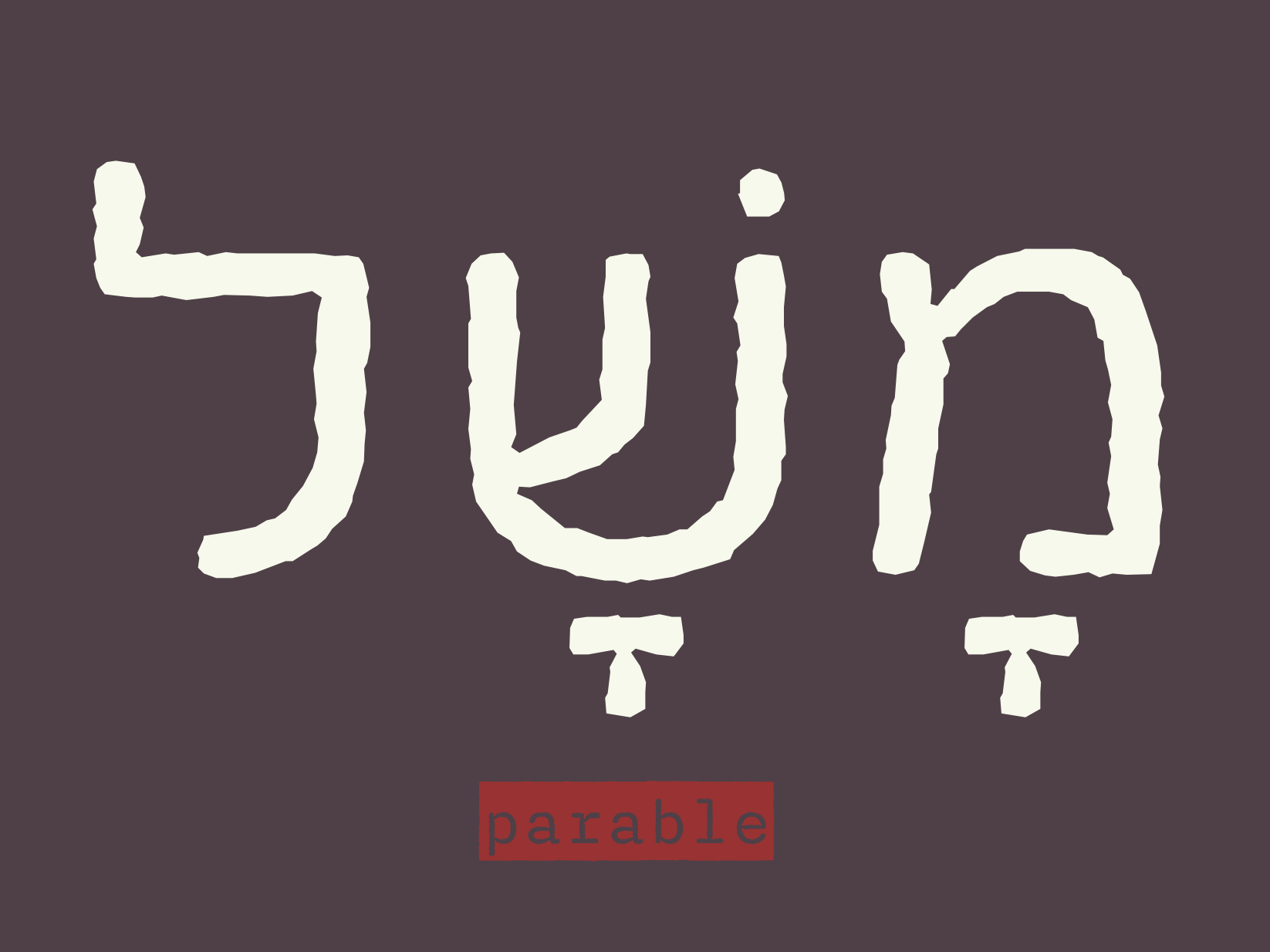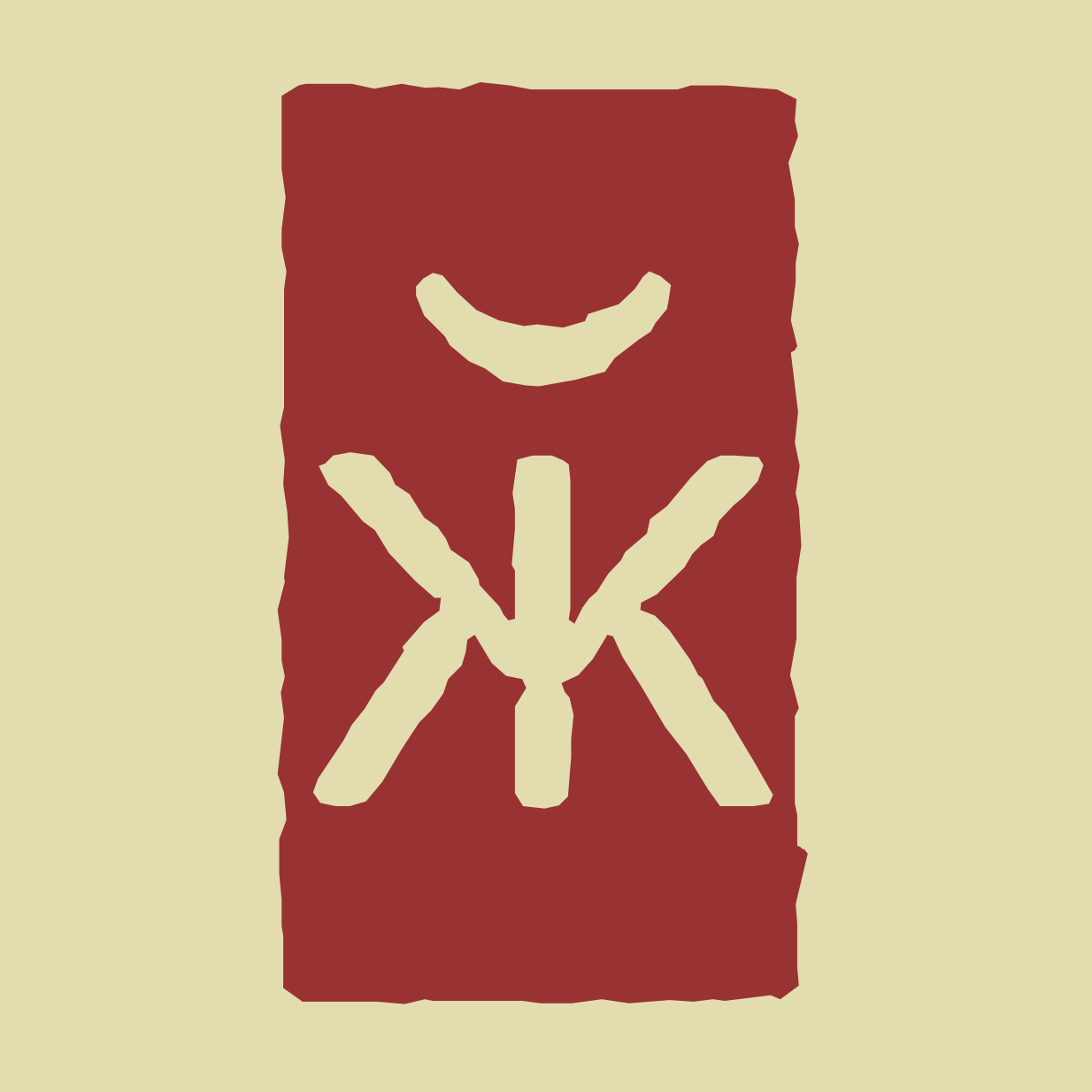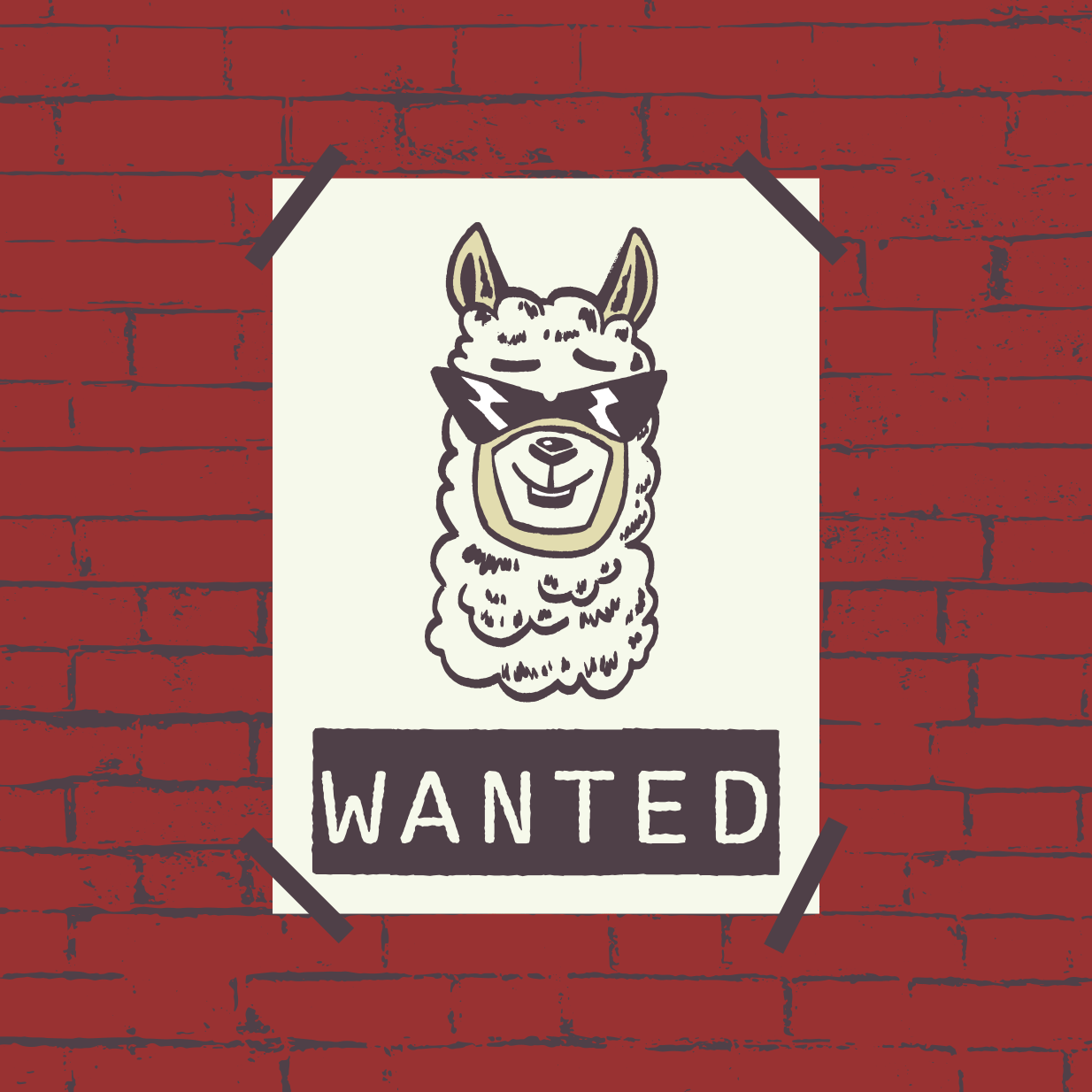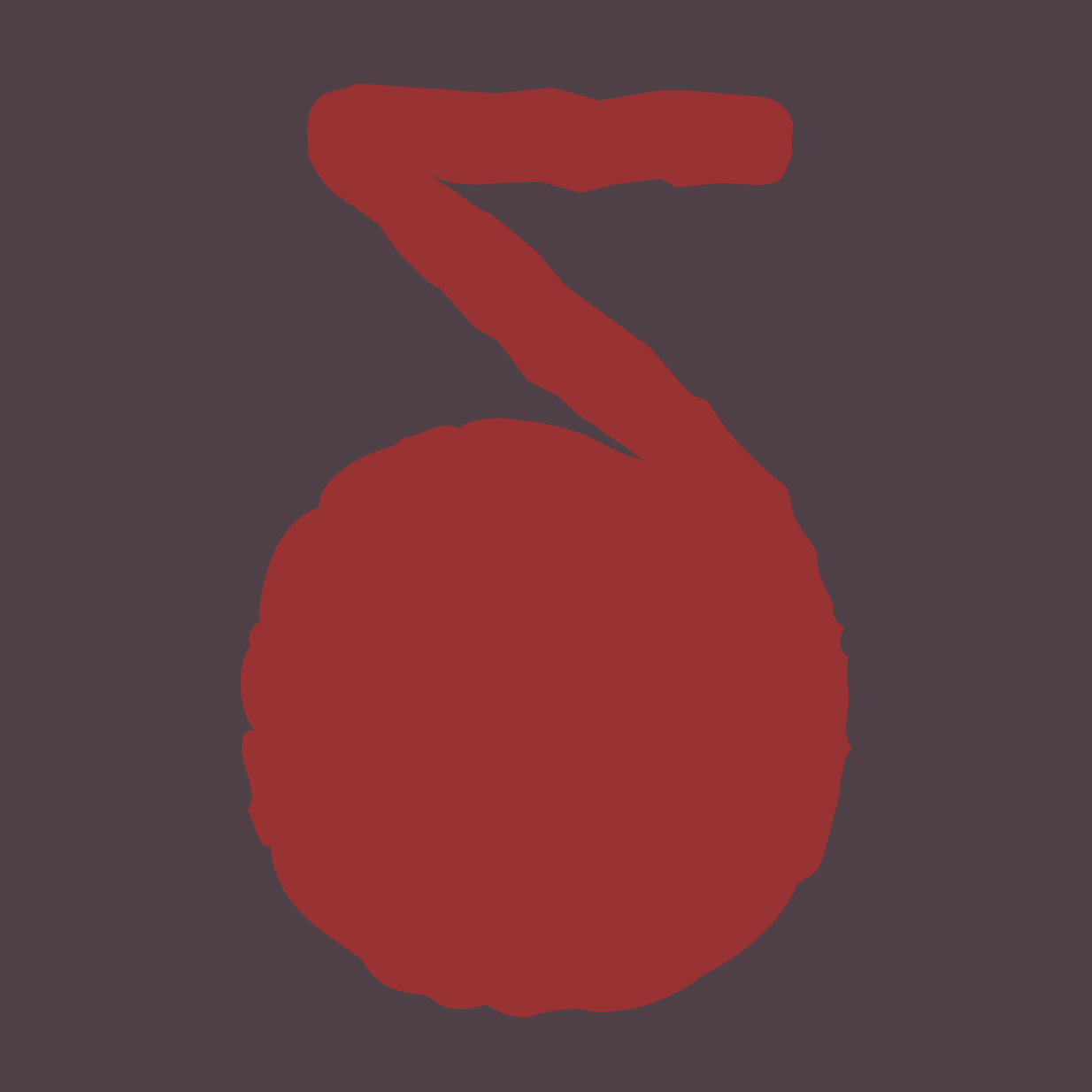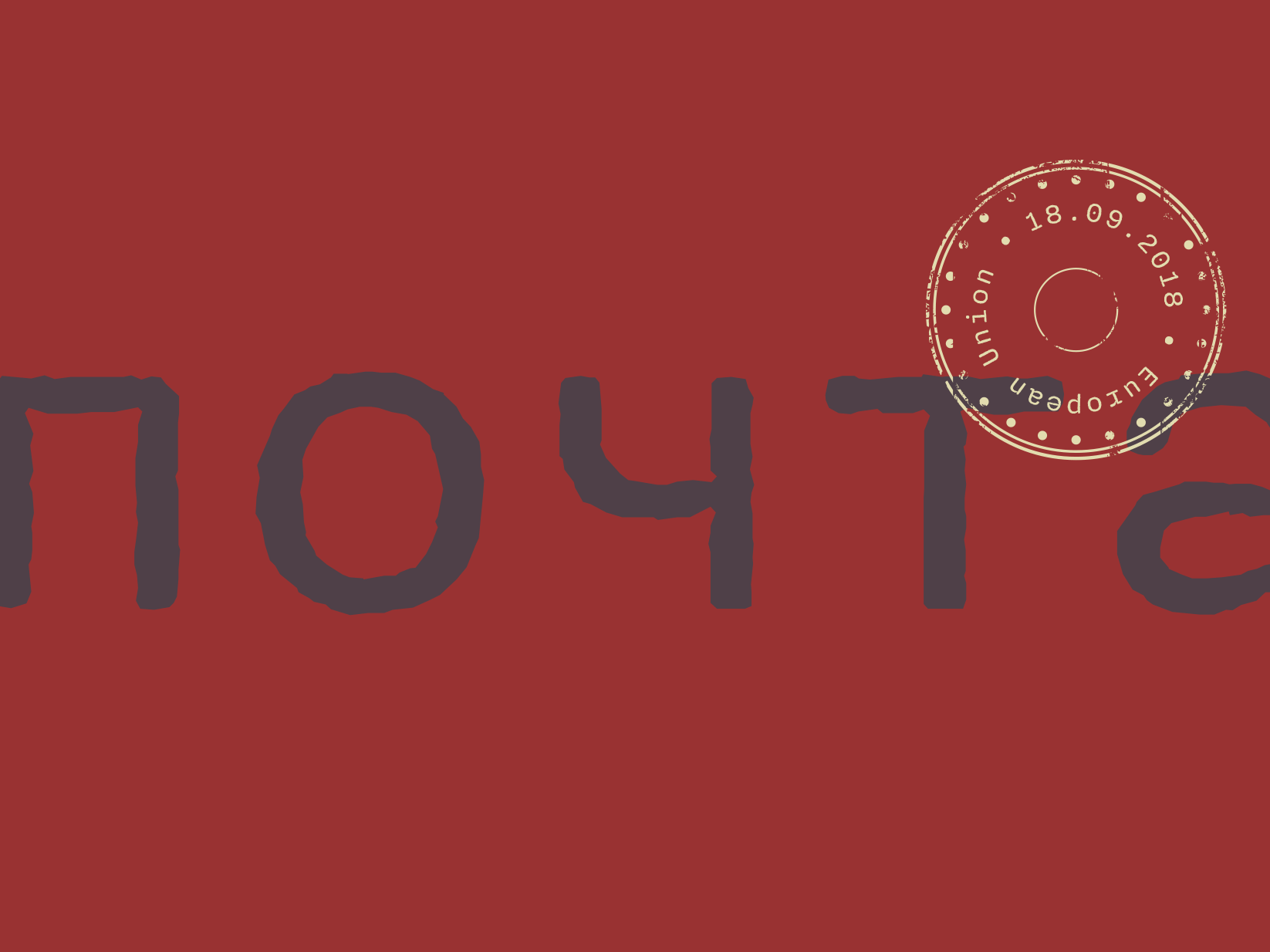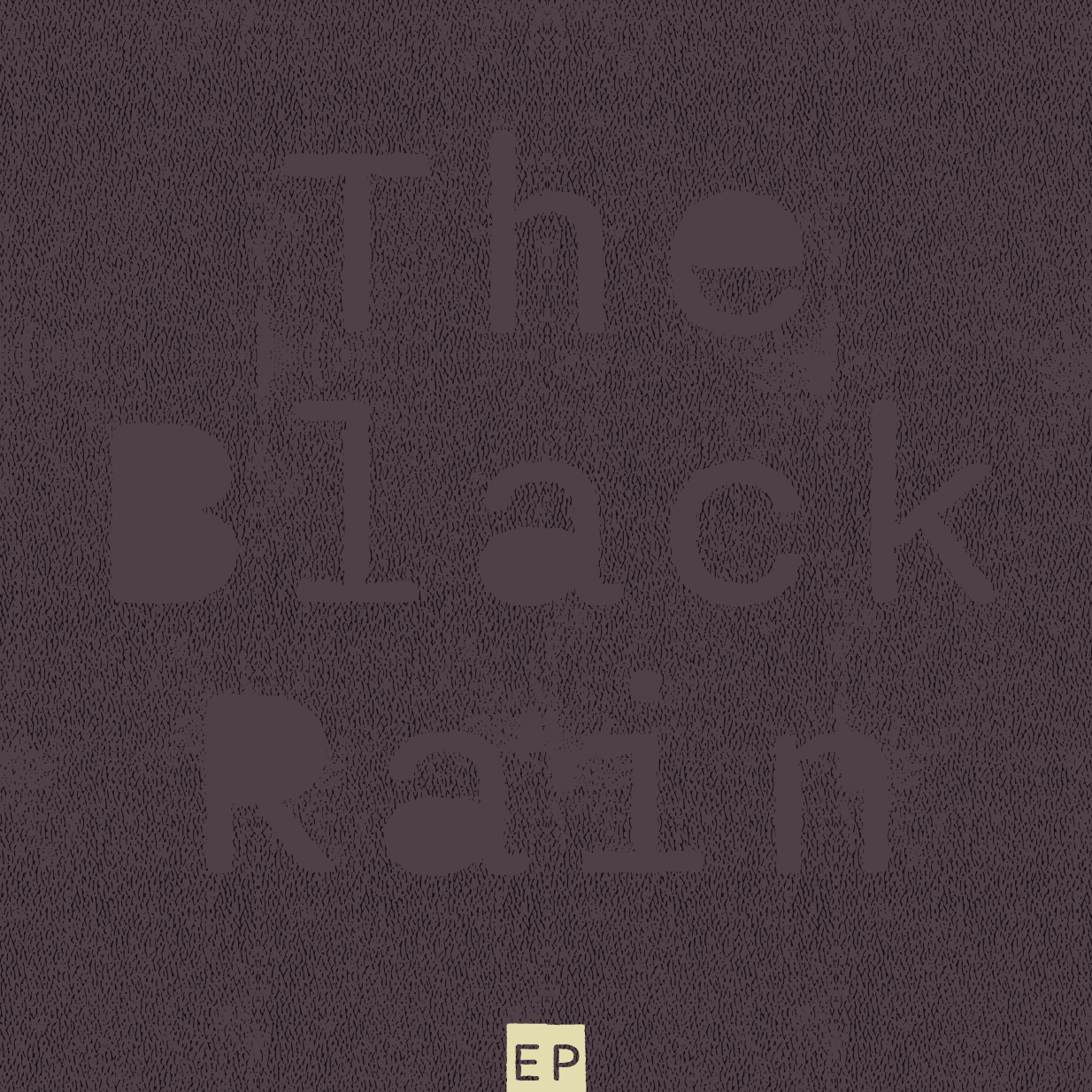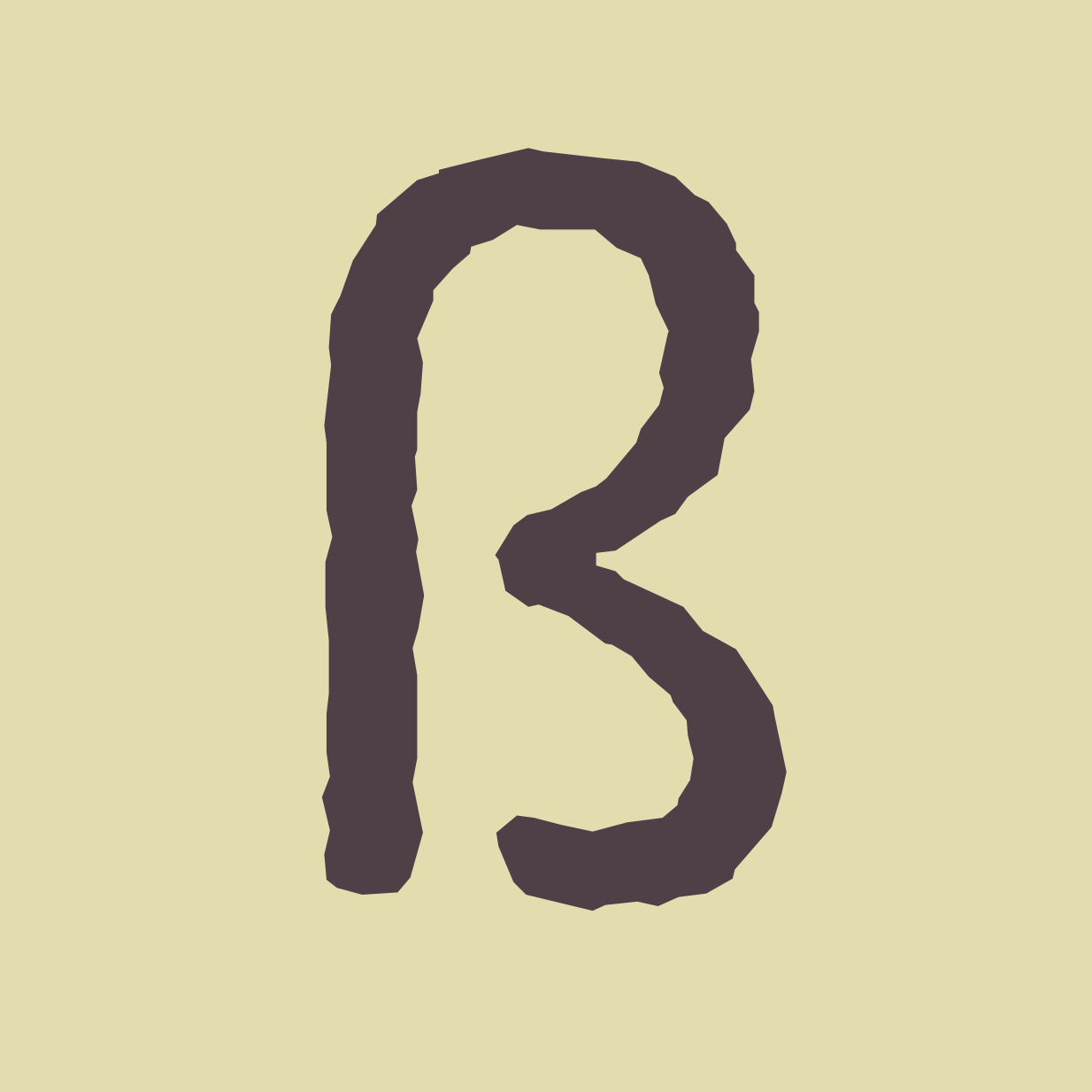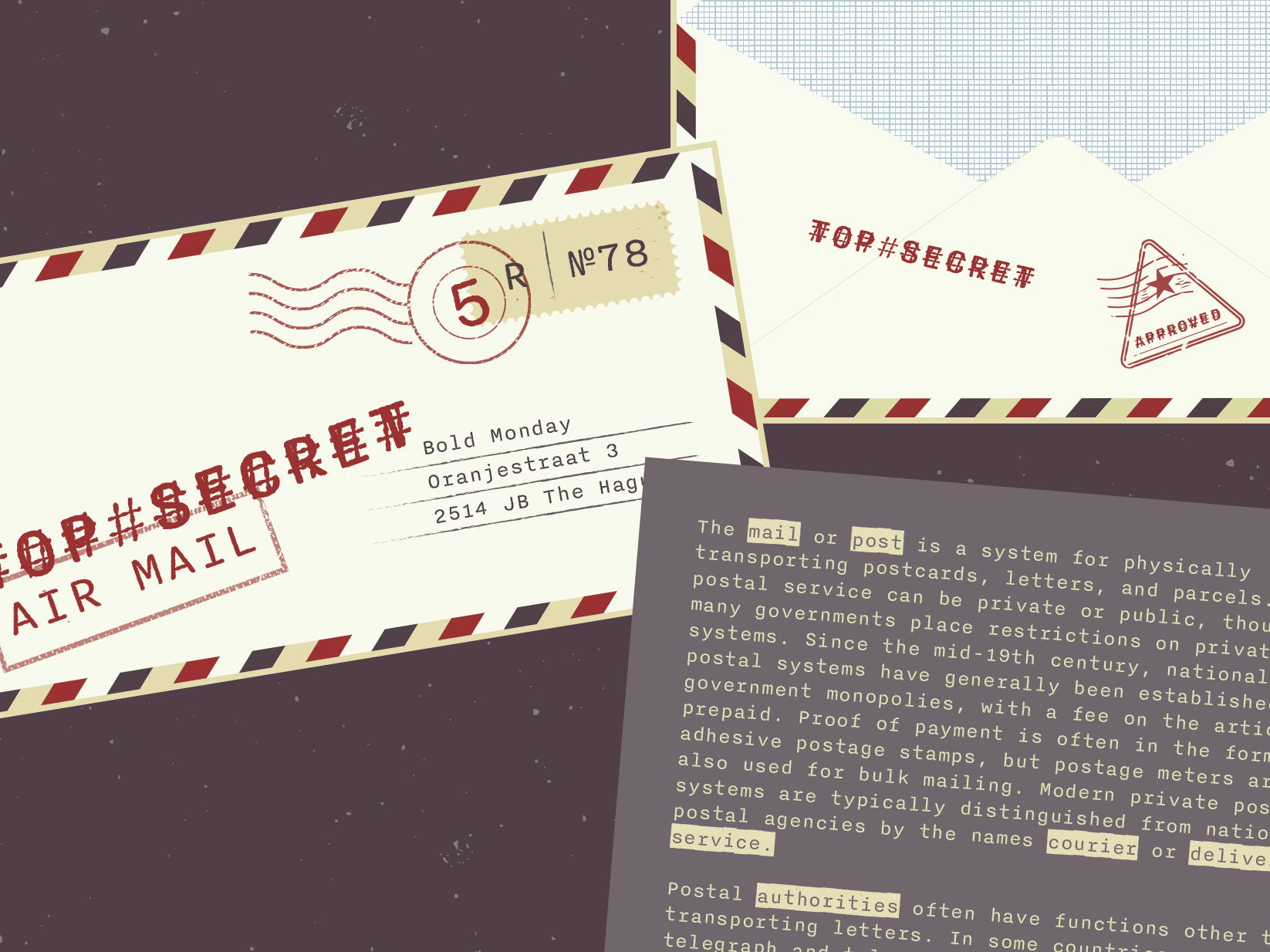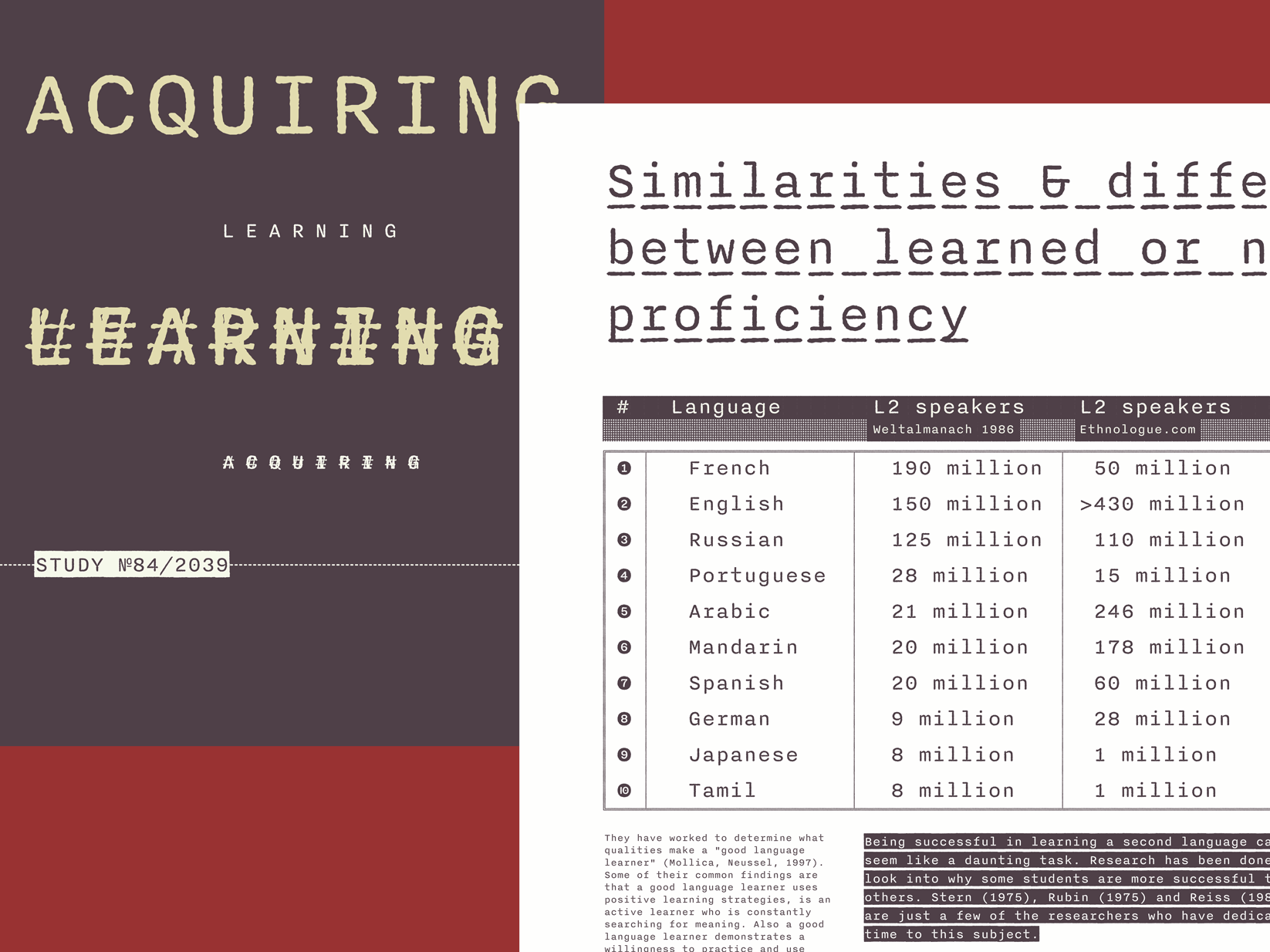
Nitti Typewriter
Nitti Typewriter, a relative of our Nitti series, is a playful nod to the aesthetics of typewriters in five flavours: Normal, Open, Underlined, Corrected, and Cameo. The family is based on monospaced Nitti and has its roots in the first sans-serif designs of the 19th century — the Grotesques. Originally a British invention, Grotesques gained massive popularity in mainland Europe and also became widespread in early 20th century USA where they were commonly referred to as ‘Gothic’. The quirky and often idiosyncratic shapes of these early English sans-serifs lend them the humanity and warmth still appreciated among many graphic designers today.
Nitti is named after Francesco Raffaele Nitto, better known as Frank ‘The Enforcer’ Nitti, one of the henchmen of Al Capone. The family is part of a bigger collection of Grotesque-inspired typefaces that also includes a poster version called Stanley, the regular monospaced Nitti, and a proportional version called Nitti Grotesk.
Nitti Typewriter has an very extensive character-set with Latin, Greek, Cyrillic glyphs that cover all European languages, Asian languages that use the Cyrillic script, plus Hebrew.
Designers
Pieter van Rosmalen
Yanek Iontef
2007–2016